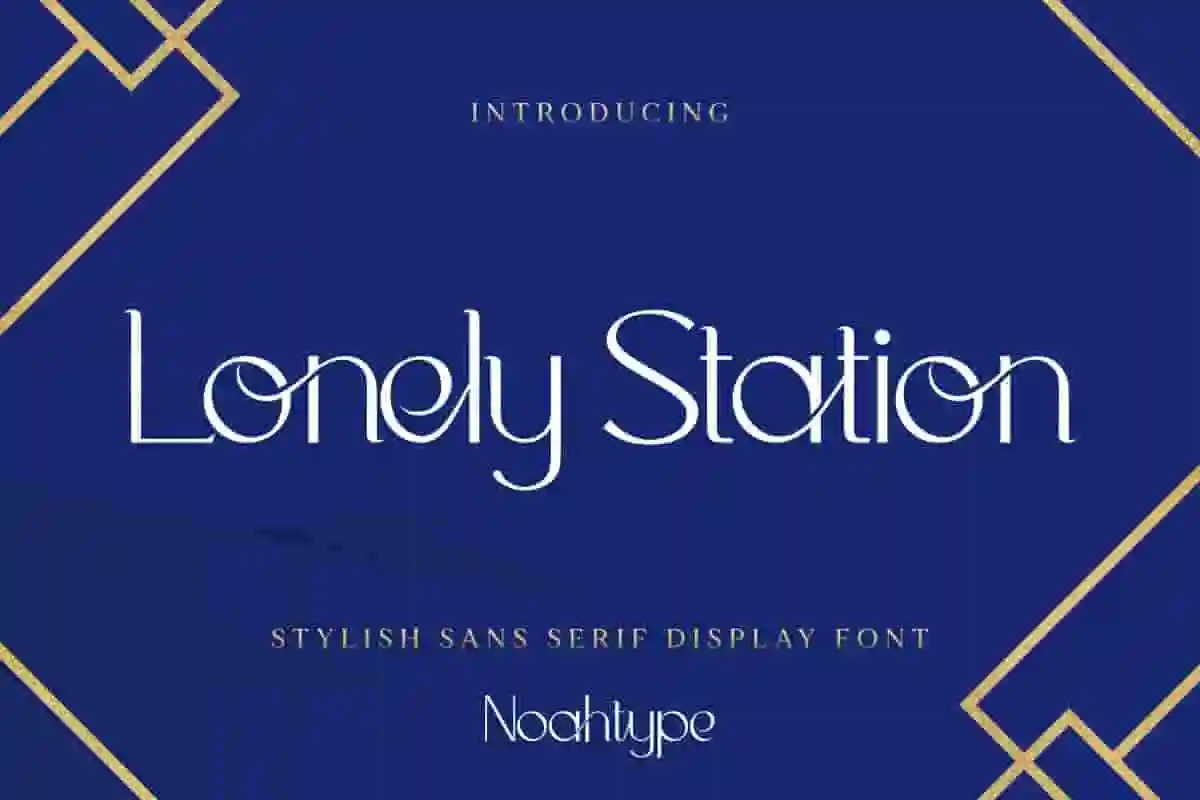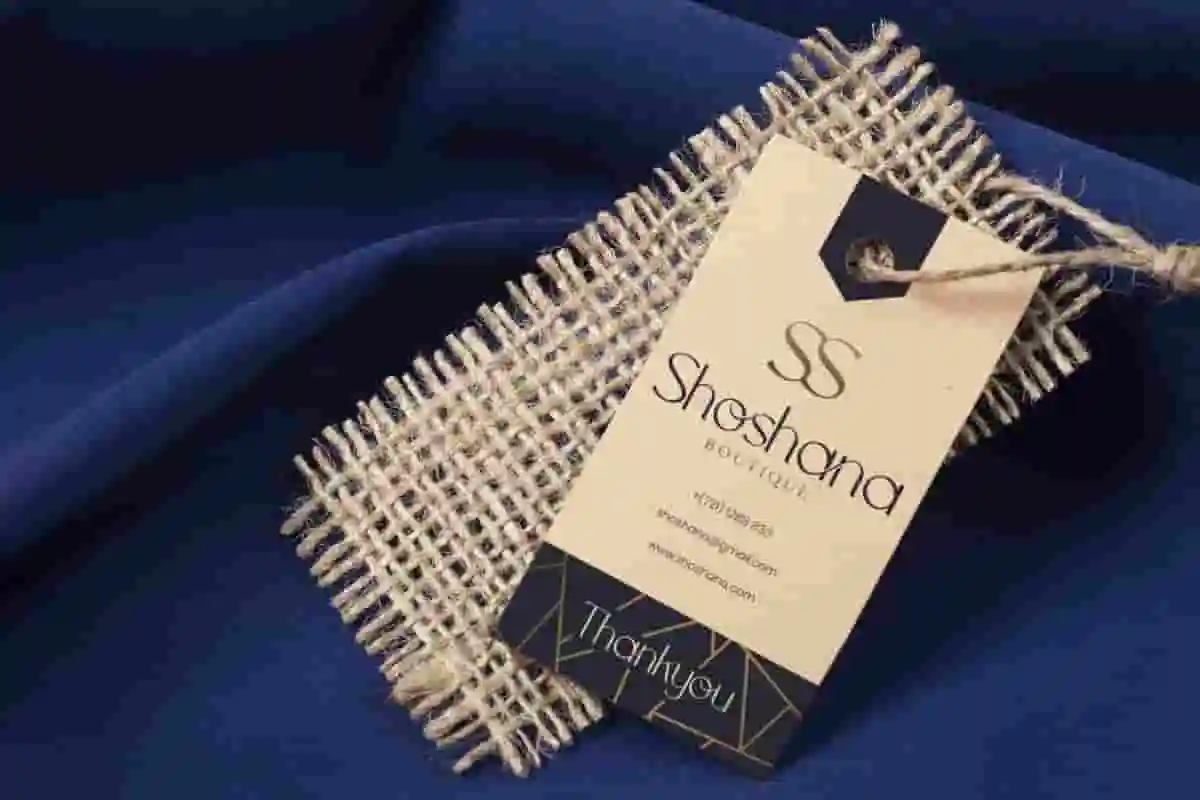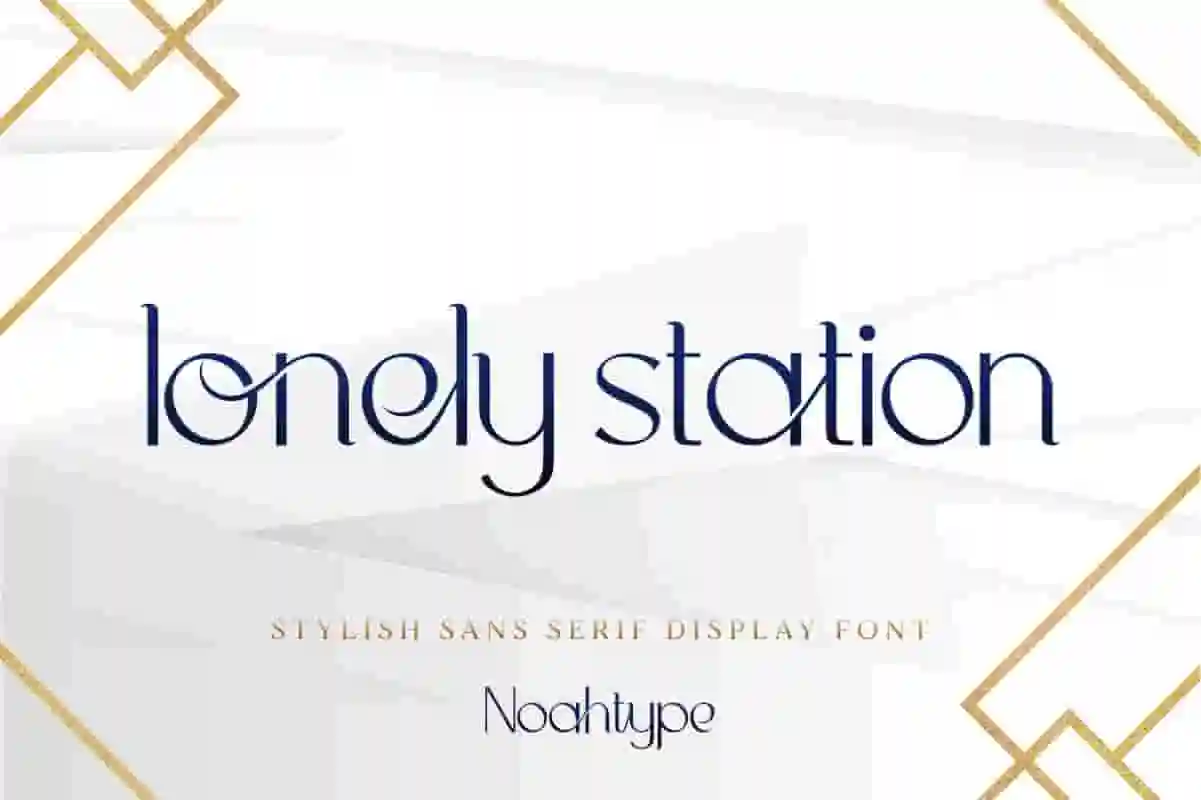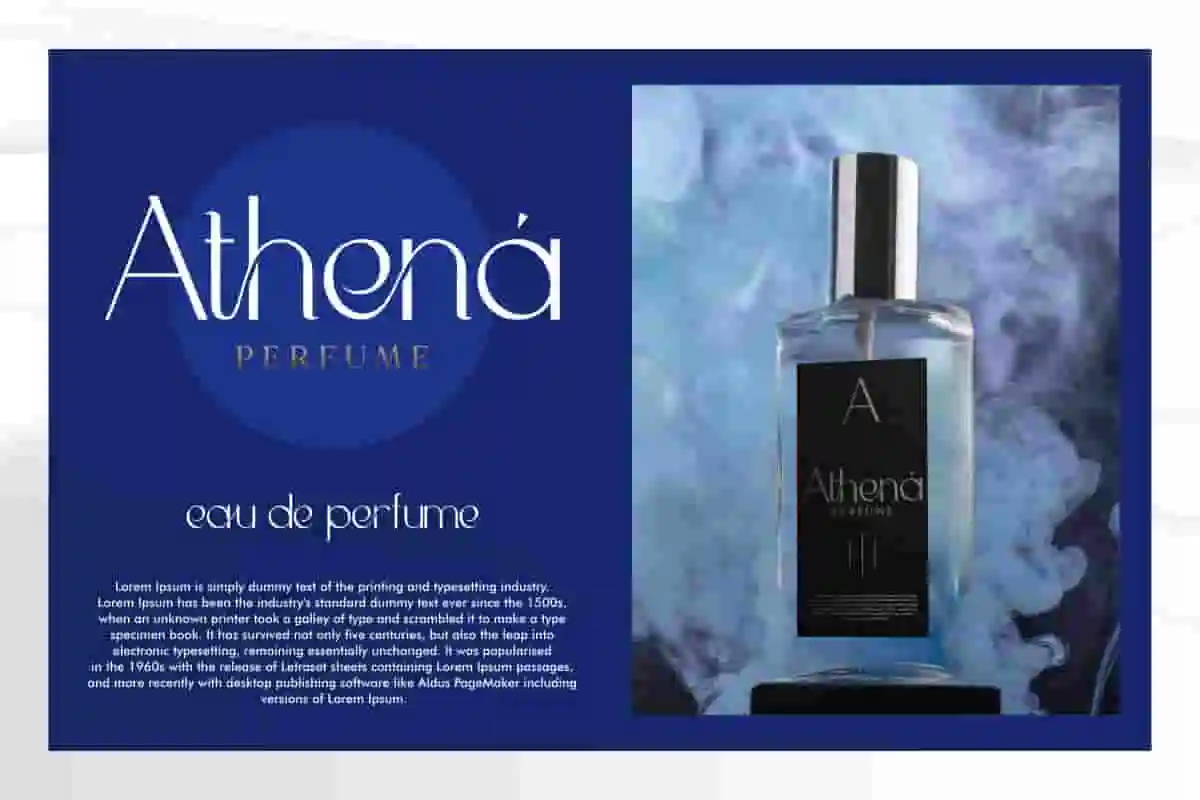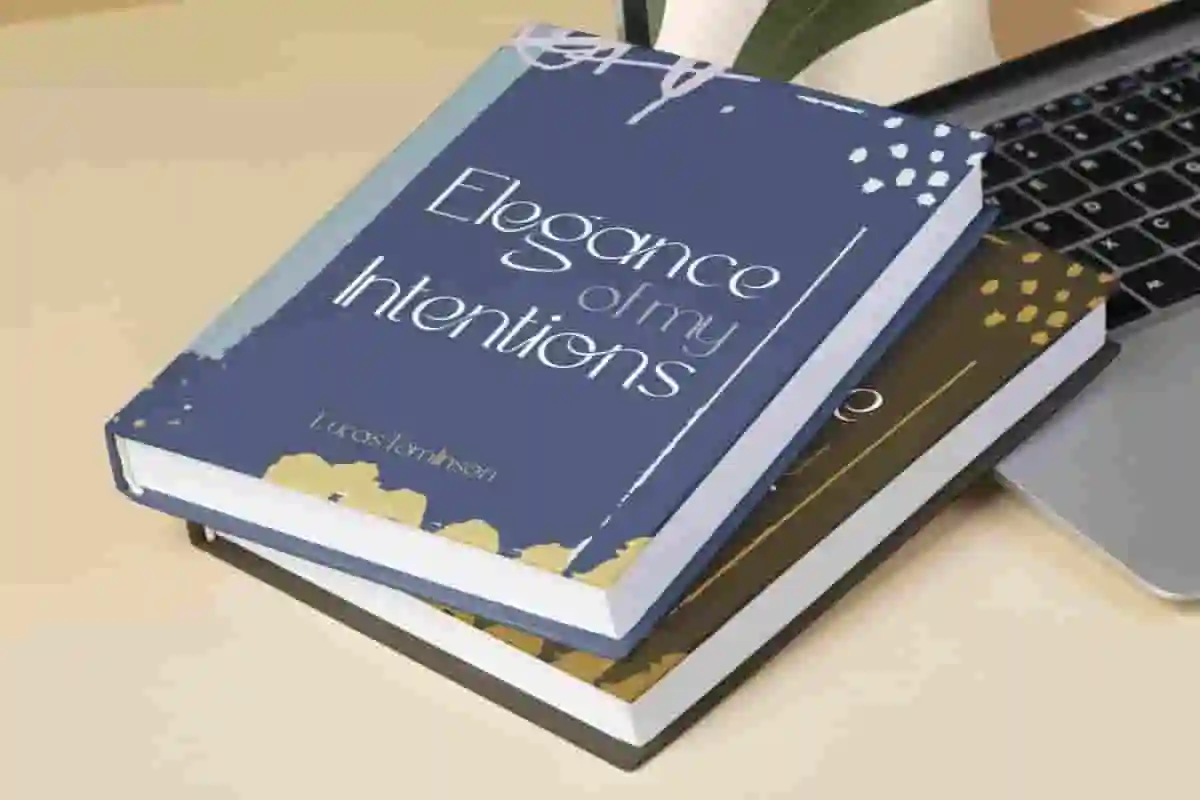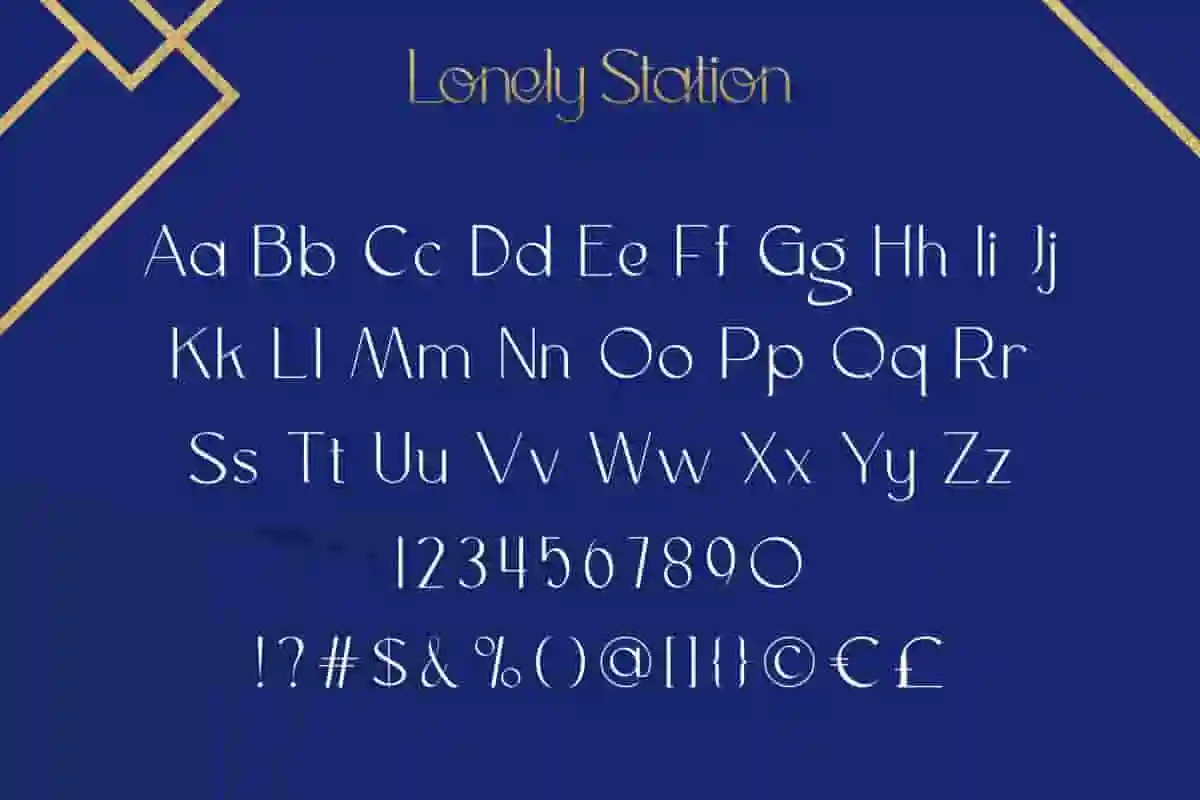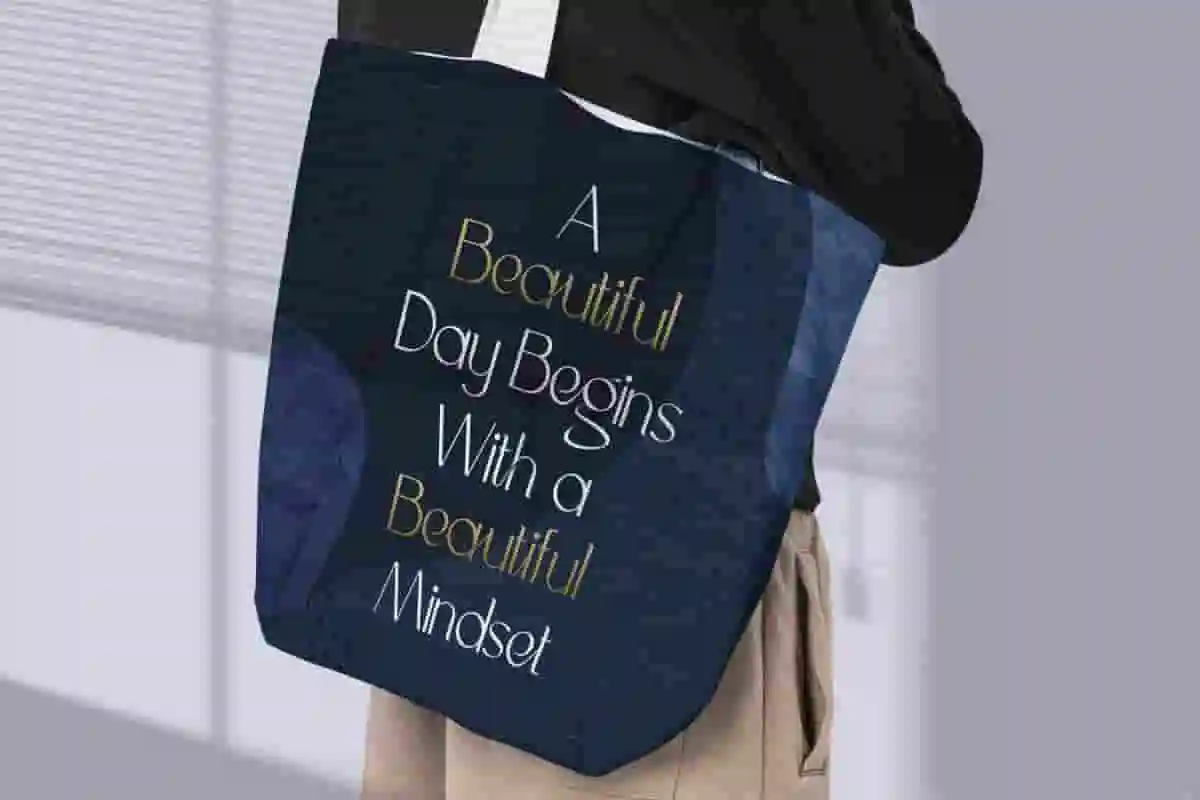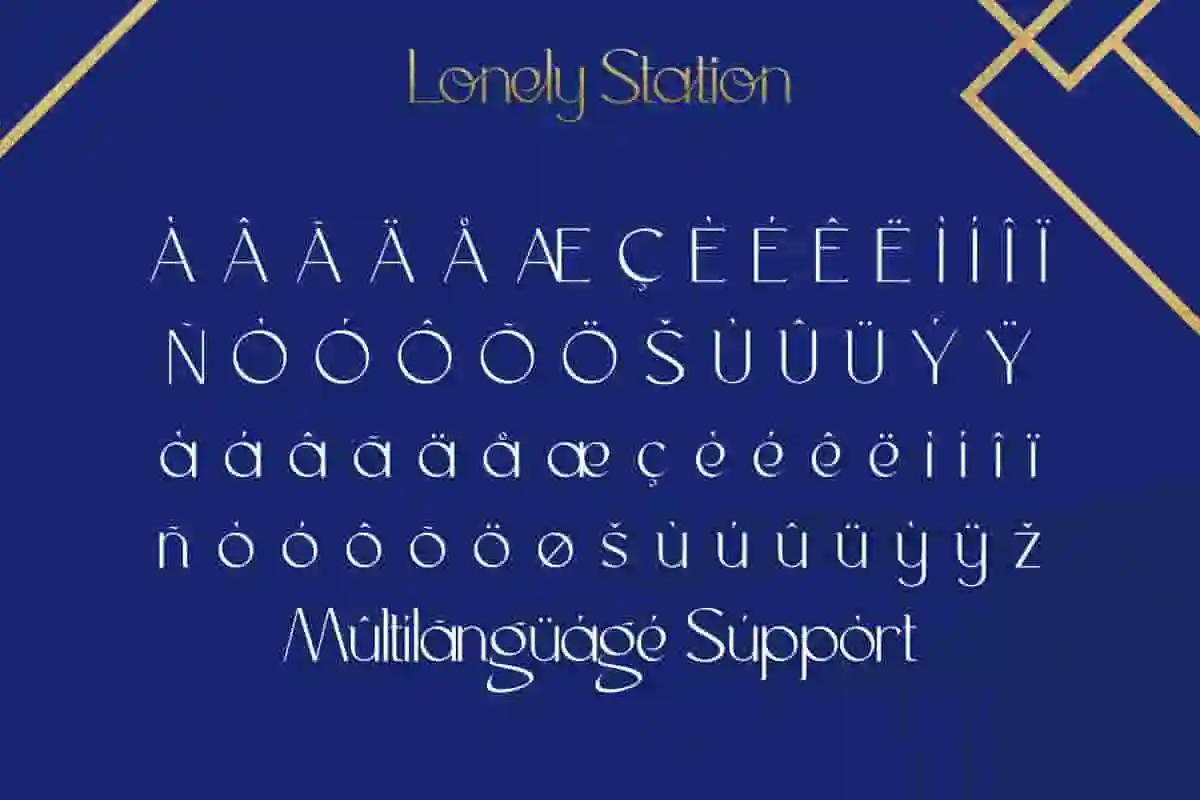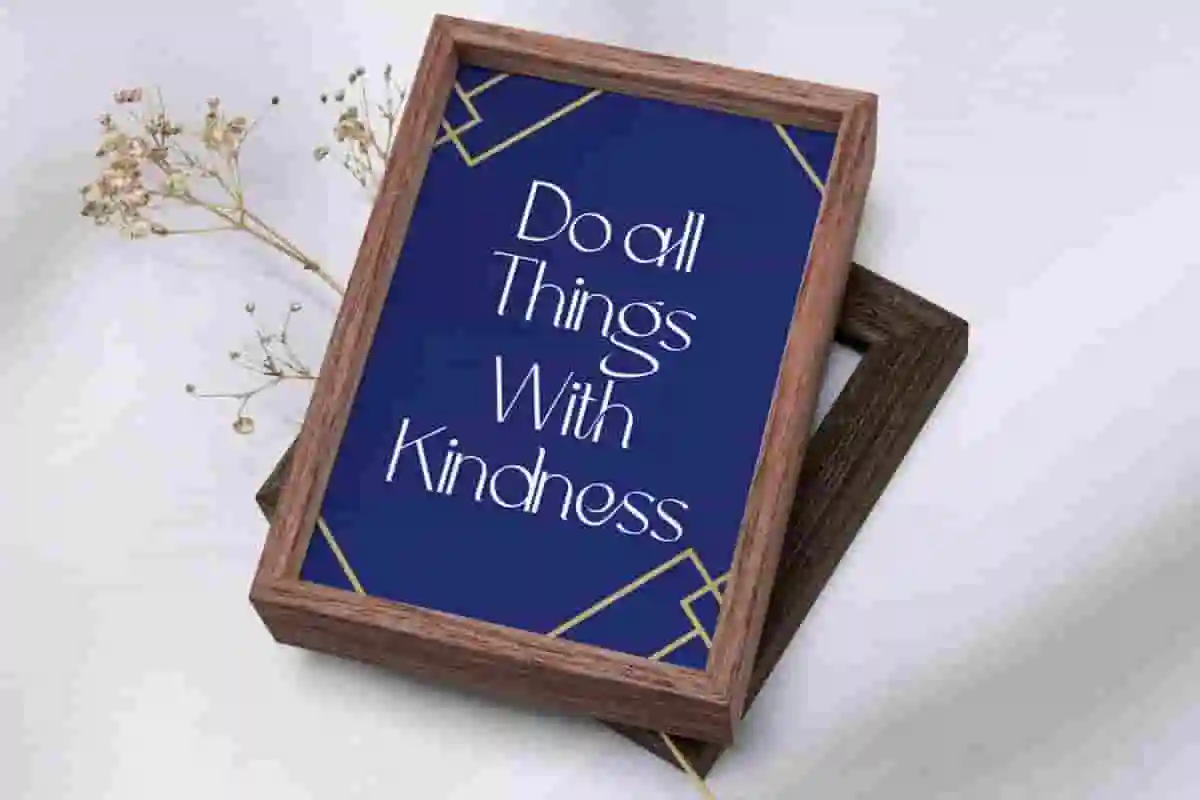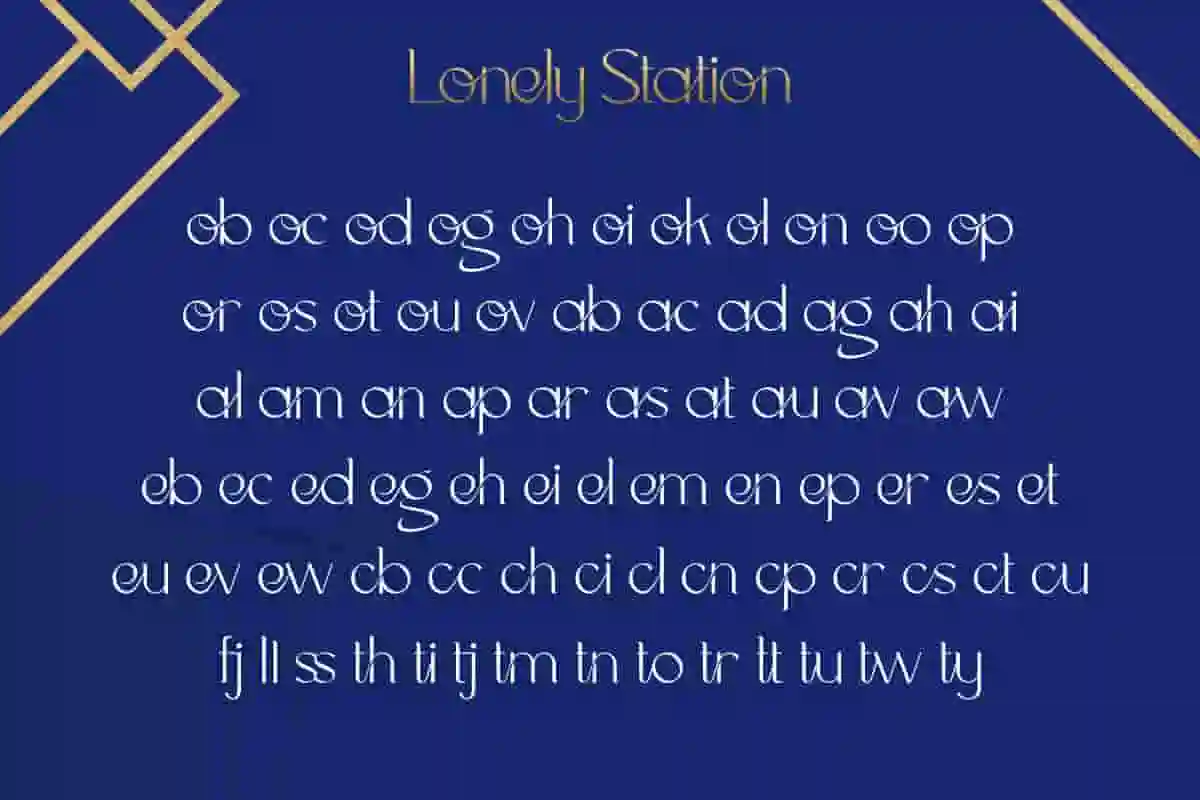
Lonely Station Font is a modern sophisticated ligature sans serif display font. This font has sleek lines that are continuous with the letters on the side and still easy to read. It would be the best choice for fashion, beauty product, florist, restaurant, writer, publishing, printing, and more!
Lonely Station Font include full set of All Caps Basic Characters, Numerals and Punctuation. Also has ligature character to support your creativity in various designs, such as business card, signage, label, brand logo, product packaging, design custom, design interior, book, web page, quote, etc.
Lonely Station Font supports multilingual languages (including multiple currency symbols). With a simple installation and will be ready to use both on Windows machine or Mac. Tested work well on Adobe software such as Illustrator, Photoshop and several other software.